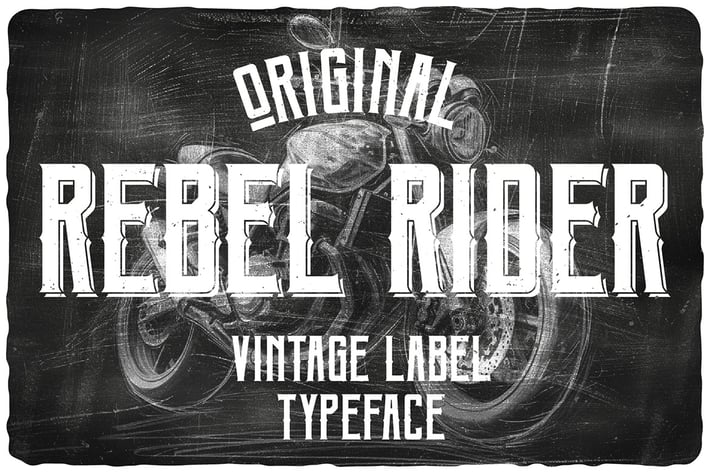
Rebel Rider Vintage Label Font
Unique, vintage, retro, creative, condensed & vintage serif font family. Comes with multilingual support - great for your new logo or branding project.
- Great for retro or rustic style branding projects